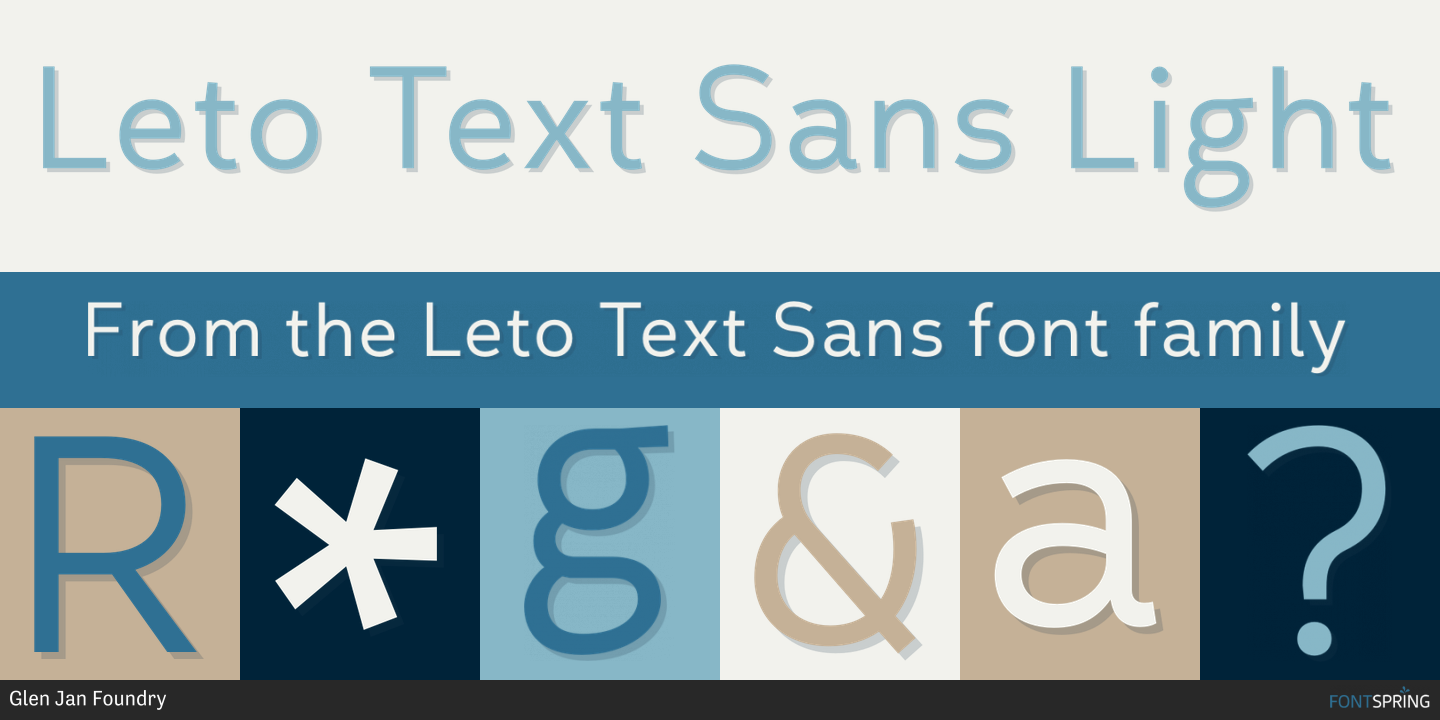
Leto Sans Serif Font . Leto sans font is the latest promising work of elena kowalski / glen jan. Web leto sans font.
Leto Sans Serif Font - Web a sans serif typeface with 18 styles, available from adobe fonts for sync and web use. Leto sans font is the latest promising work of elena kowalski / glen jan. Adobe fonts is the easiest way to. Web leto sans font. These can be used for creative headlines, logos and.
Leto Sans Serif Font - Leto sans font is the latest promising work of elena kowalski / glen jan. These can be used for creative headlines, logos and. Web leto sans font. Adobe fonts is the easiest way to. Web a sans serif typeface with 18 styles, available from adobe fonts for sync and web use.
Leto Sans Serif Font - Download—the font meta search engine with more than 50,000 font styles to find and order. Adobe fonts is the easiest way to. Leto sans font is the latest promising work of elena kowalski / glen jan. Web leto sans font. Web a sans serif typeface with 18 styles, available from adobe fonts for sync and web use.
Leto Sans Serif Font - These can be used for creative headlines, logos and. Adobe fonts is the easiest way to. Web leto sans font. Leto sans font is the latest promising work of elena kowalski / glen jan. Web a sans serif typeface with 18 styles, available from adobe fonts for sync and web use.
Leto Sans Serif Font - Web leto sans font. Web a sans serif typeface with 18 styles, available from adobe fonts for sync and web use. These can be used for creative headlines, logos and. Leto sans font is the latest promising work of elena kowalski / glen jan. Adobe fonts is the easiest way to.